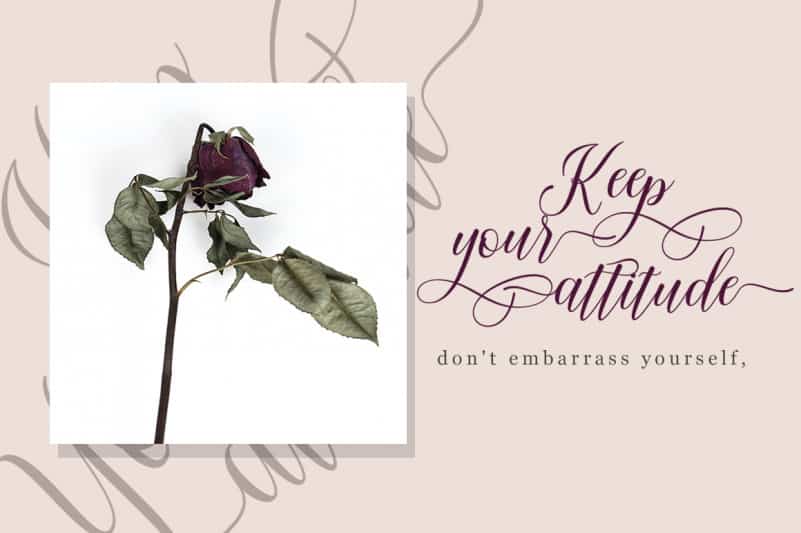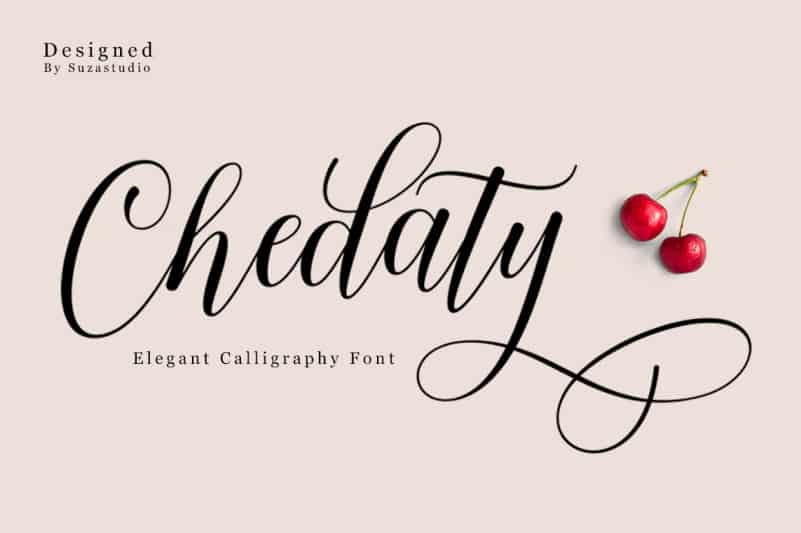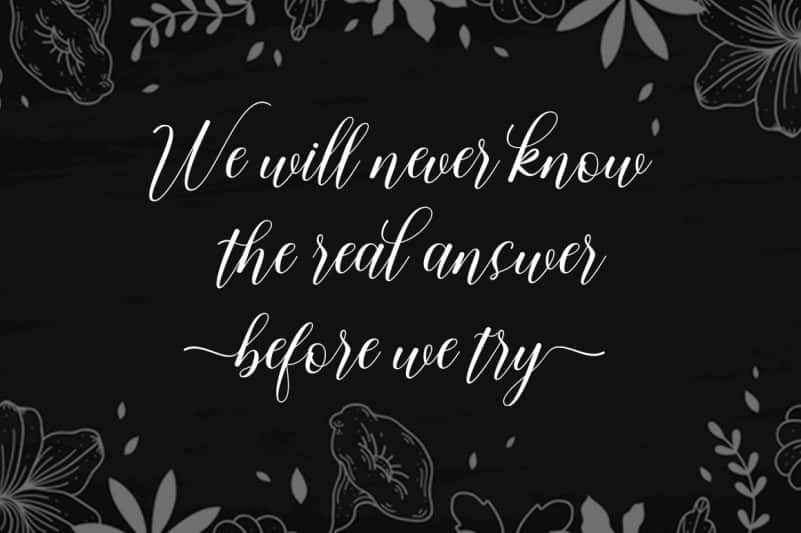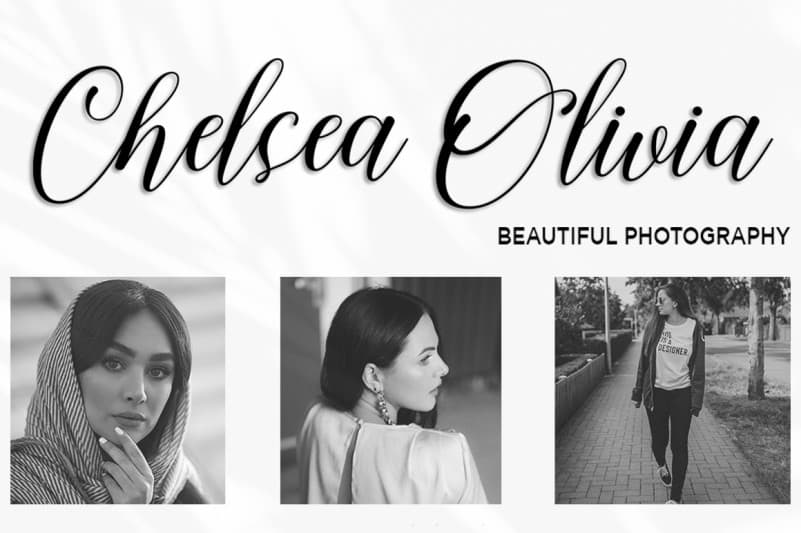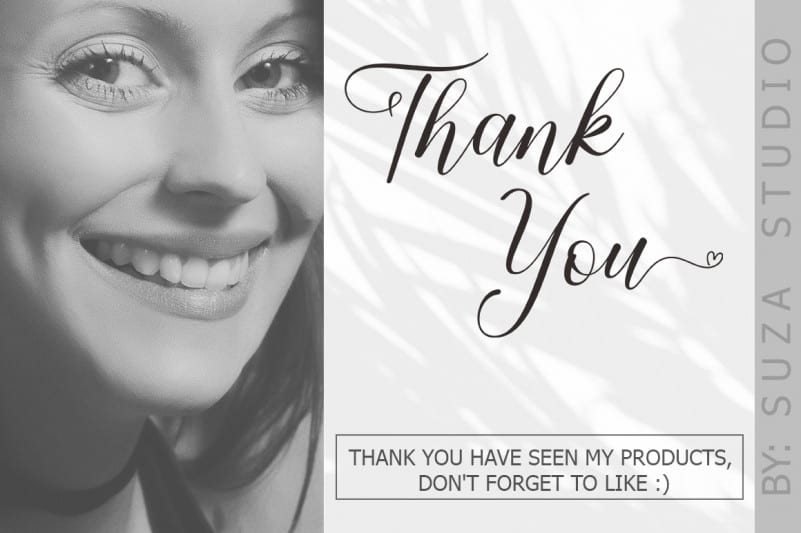
Chedaty Calligraphy Font
Chedaty Calligraphy Font is a new modern script font with an irregular baseline. Trendy and feminine style. Chedaty looks lovely on wedding invitations, thank you cards, quotes, greeting cards, logos, business cards and more. Perfect for using in ink or watercolour. Including initial and terminal letters, alternates, ligatures and multiple language support.